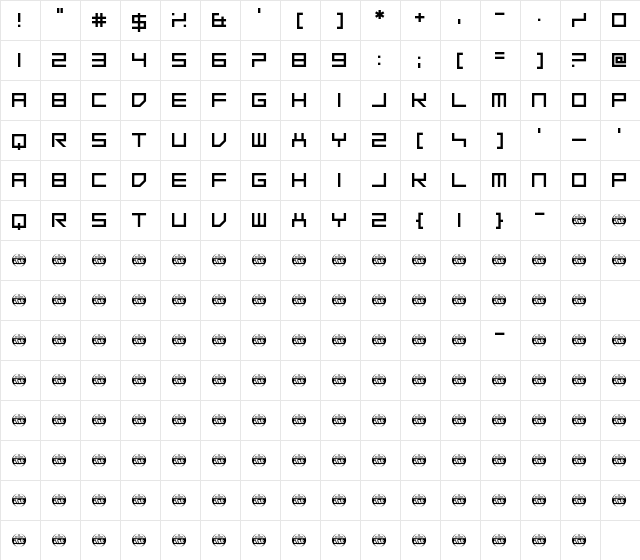
Time Won Regular Font Preview
Time Won Regular
Time Won Regular Font Details
| Designer | NAL |
Design Context for Time Won Typeface
Time Won takes a measured approach to typography — its balanced proportions and neutral character make it a reliable workhorse for both digital and print work.